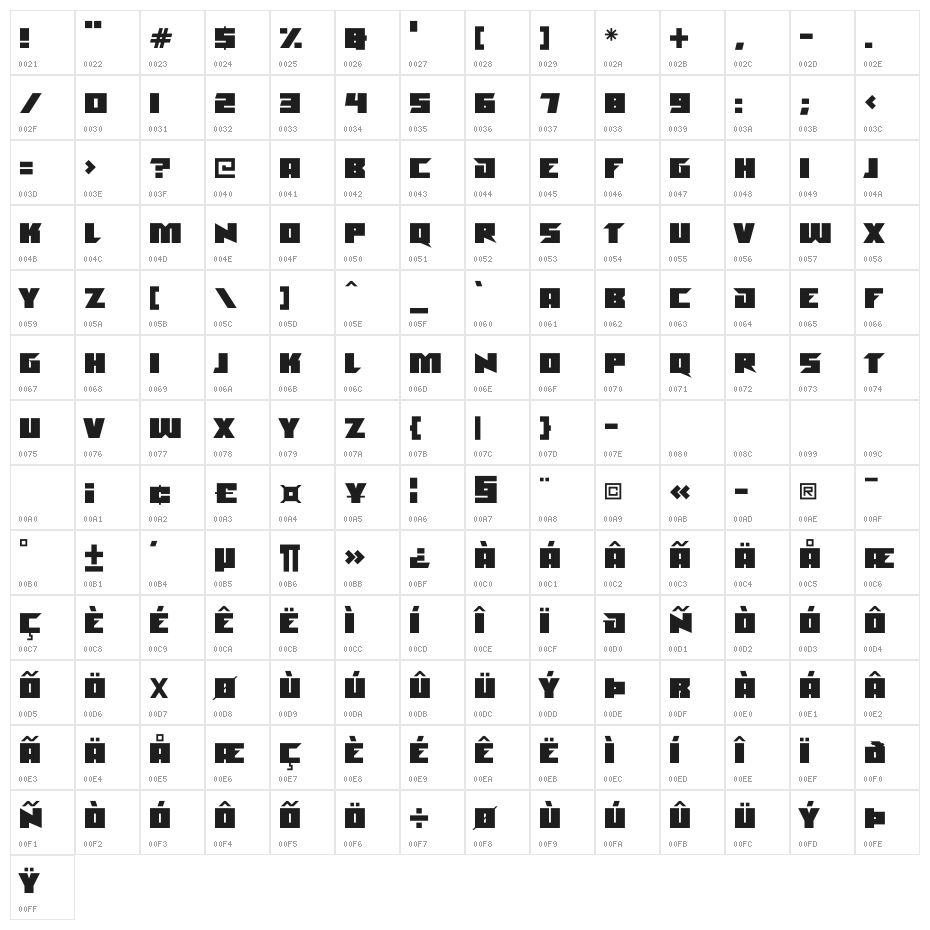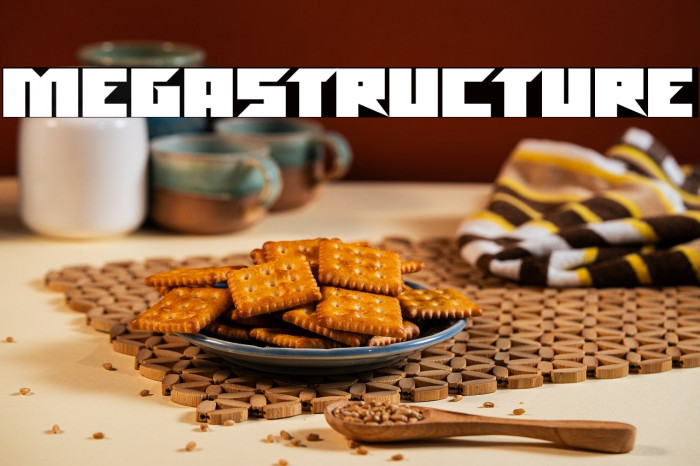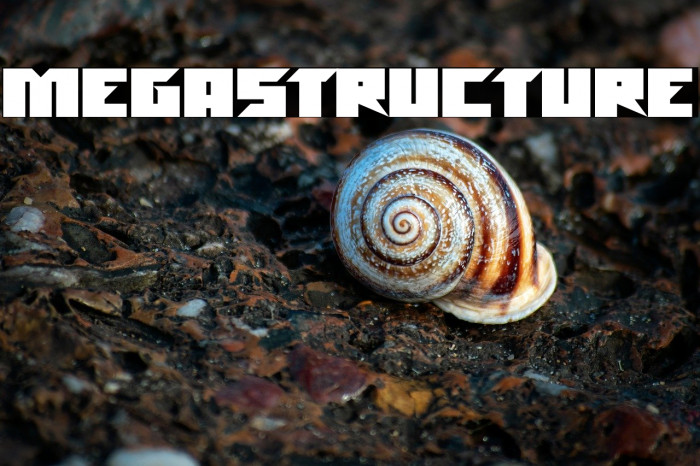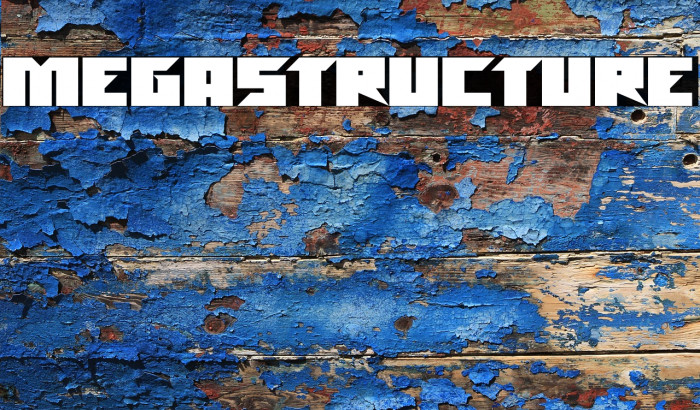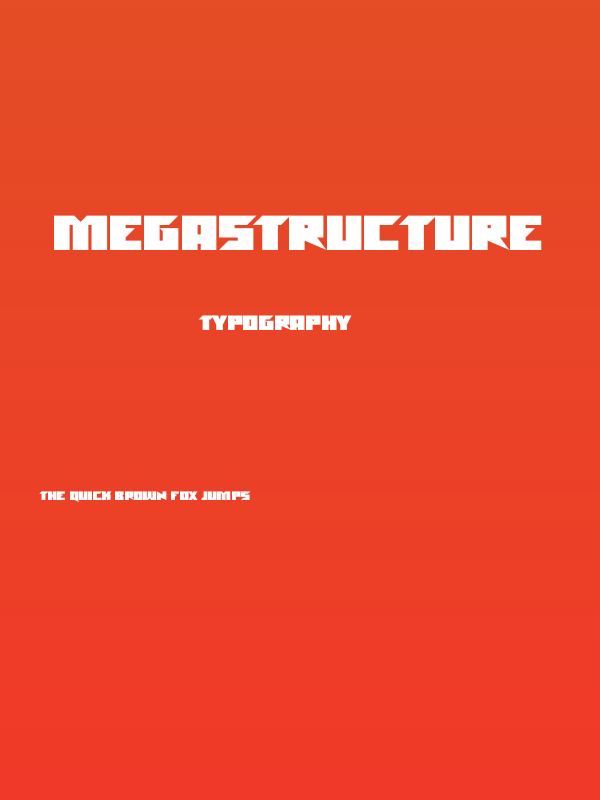
Megastructure Font
Megastructure Description
This font features a bold and geometric design with sharp angles and a futuristic aesthetic. The characters are constructed with thick, block-like forms that convey strength and modernity. The uppercase and lowercase letters maintain a consistent style, with unique cuts and edges that add a dynamic feel. Numbers and special characters follow the same bold and angular theme, ensuring uniformity across all glyphs. The font's design is reminiscent of industrial and sci-fi themes, making it suitable for projects that require a strong visual impact.
| Overall Style | Futuristic |
| Proposed Projects | Ideal for sci-fi movie posters, video game titles, industrial-themed branding, and futuristic event flyers. |